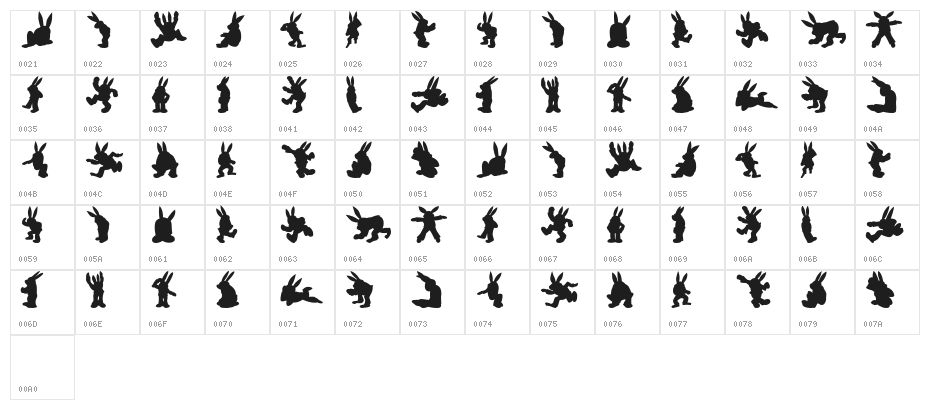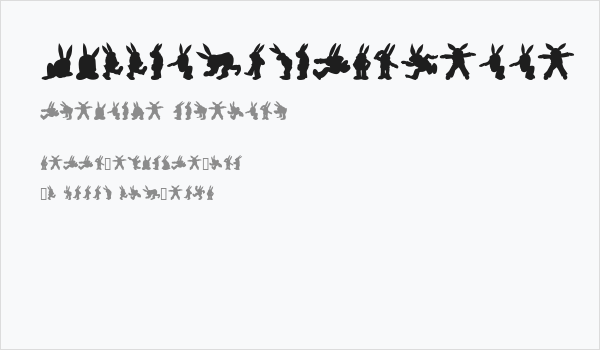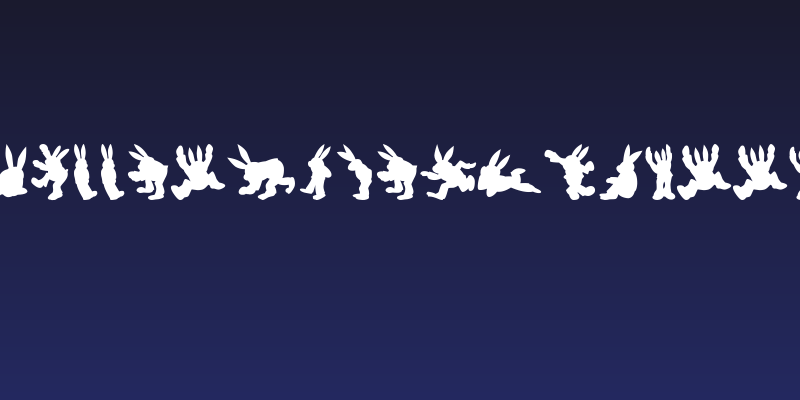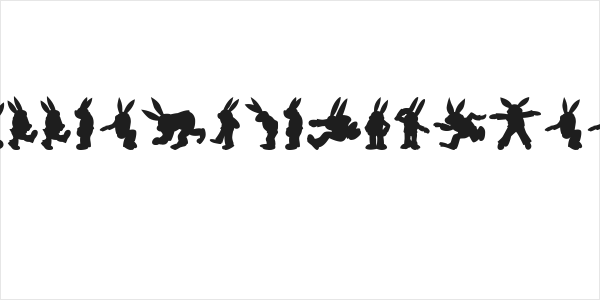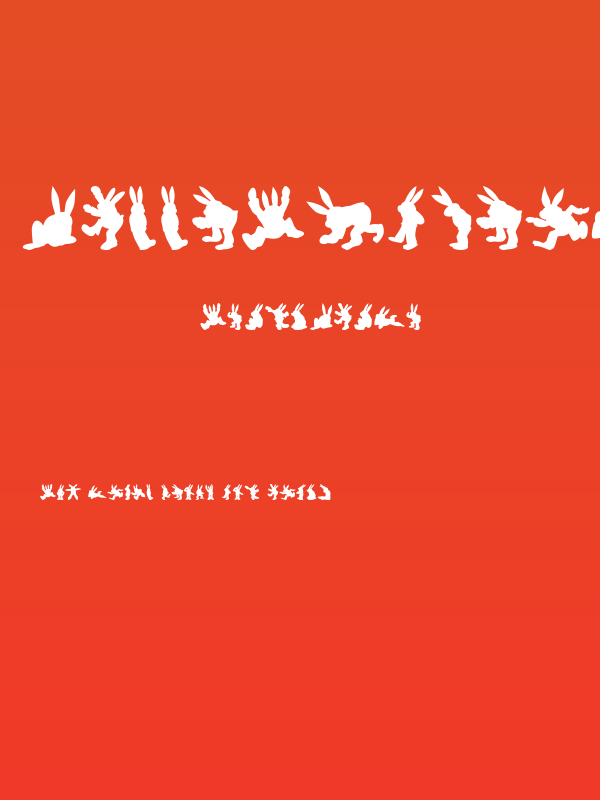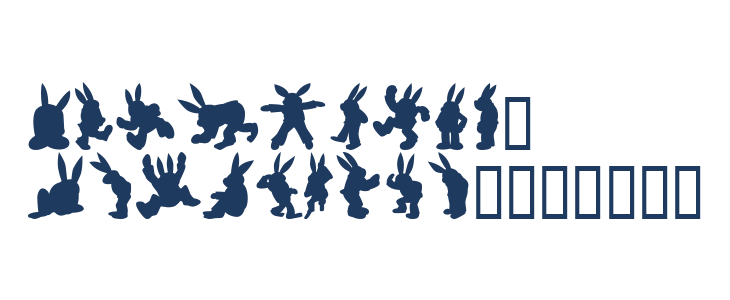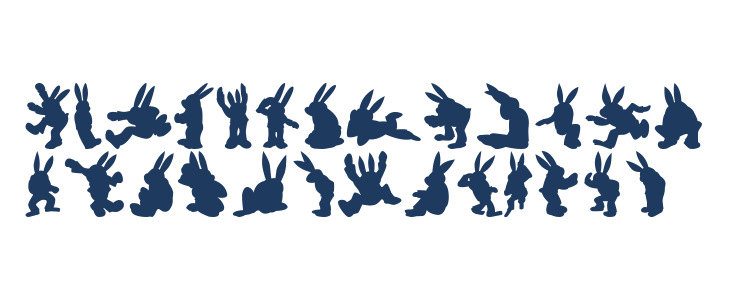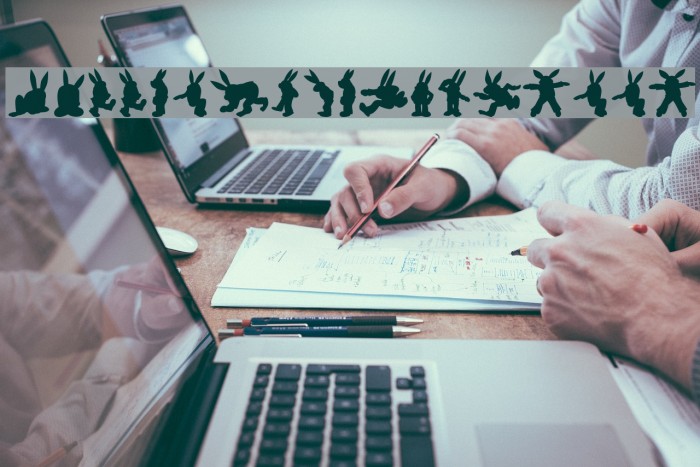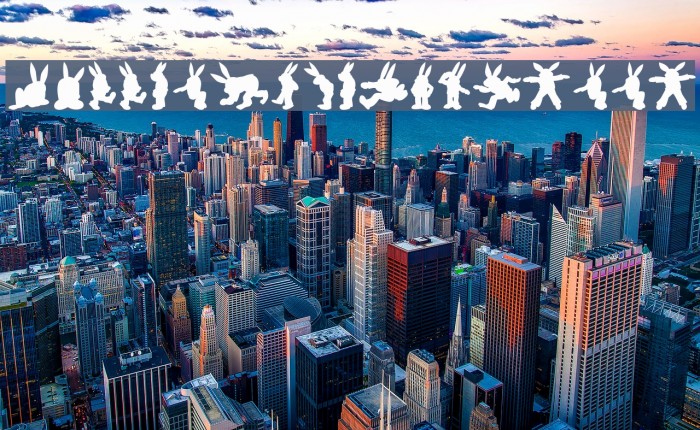
Rabbit35Silhouette Font
Rabbit35Silhouette Description
A playful, decorative font composed entirely of black rabbit silhouettes in various dynamic poses, each character formed by a unique bunny shape rather than traditional letterforms. The font is highly illustrative and whimsical, with consistent solid fills and no internal detail, emphasizing the silhouette style.
| Overall Style | Decorative, Whimsical, Playful |
| Use Case | Logos, Headlines, Posters, Themed graphics |
| Proposed Projects | Children's books, Easter event posters, playful branding, themed invitations, novelty merchandise. |